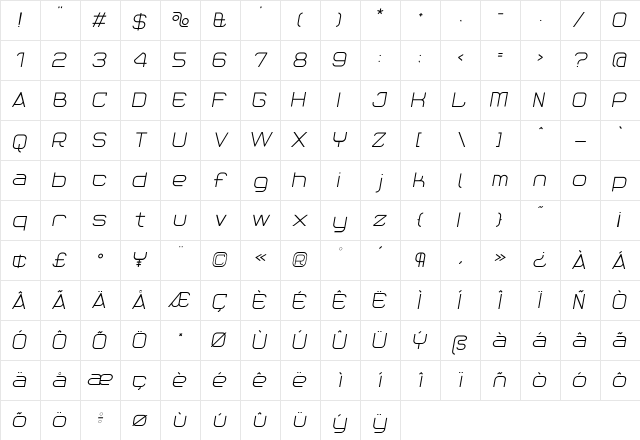
Reaction Italic
Design Context for Reaction Typeface
Reaction is a composed and adaptable typeface that performs quietly and consistently across a wide range of design contexts. The dynamic lean of this cut emphasises speed and emphasis in any layout.
Pro Tip: Try Reaction for annotation and caption copy alongside an upright companion — the contrast in angle creates a dynamic but ordered typographic system.